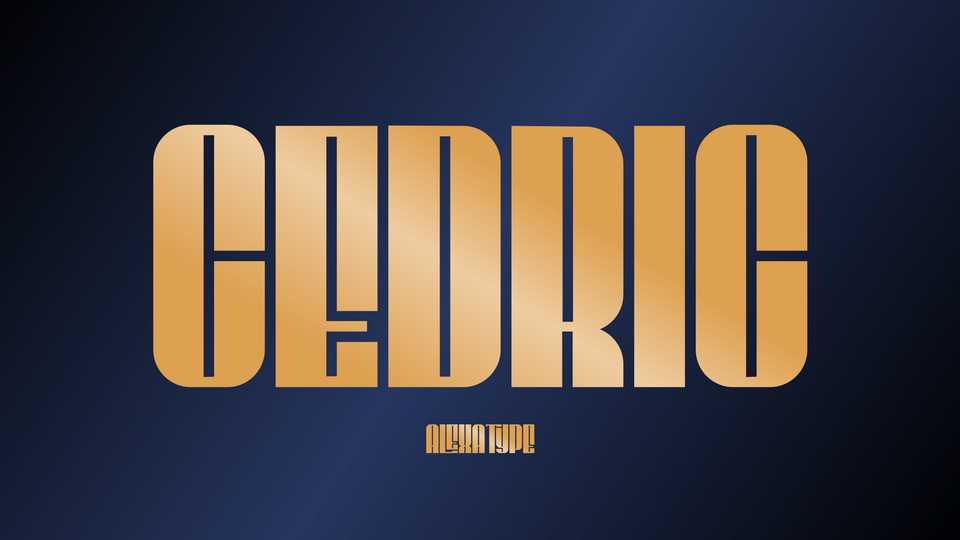
Download Cedric font, a luxury and elegant typeface that stand tall and on a higher ground than the rest. Cedric brings a classy touch with it sharp and bold statement.
Designer: Alexatype